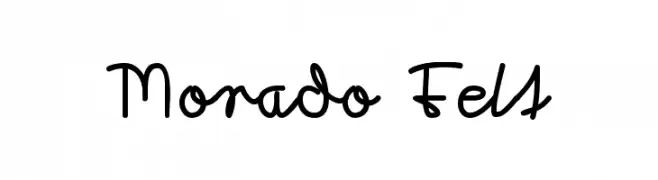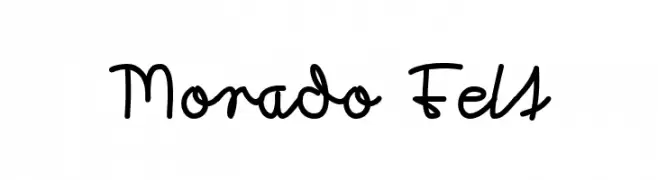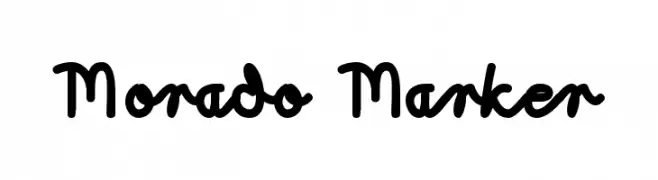
• Morado Felt
A playful, handwritten font with fluid and dynamic strokes.
• Morado Felt
A playful, casual handwritten font with fluid, connected strokes.
• Morado Felt Regular
A playful, handwritten font with smooth, flowing curves and a casual style.
• Morado Marker
A bold, handwritten font with a playful and casual style.
• Morado Marker
A bold, marker-style font with a playful, handwritten look.